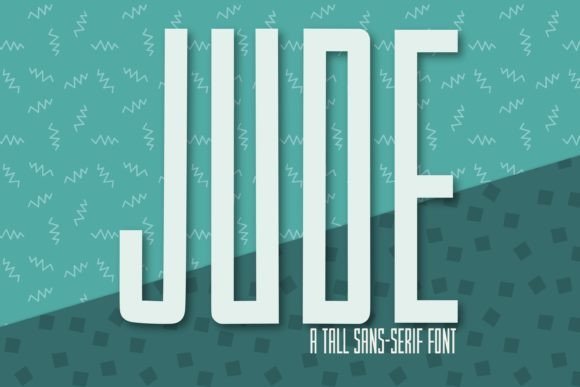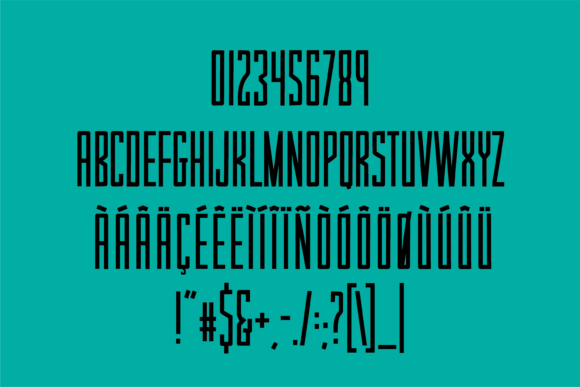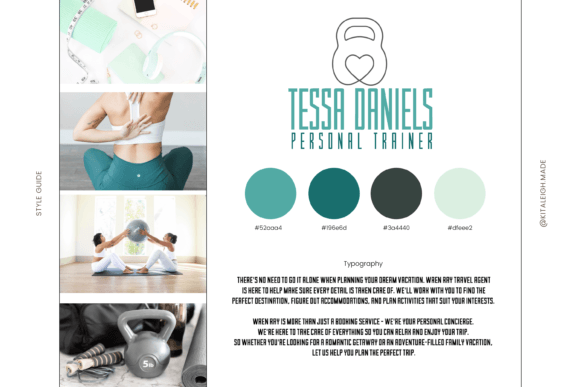
The Perfect Font for Making a Statement
As designers, we’ve all been there – staring at a blank canvas, searching for the perfect font to bring our vision to life. It’s that moment of clarity when everything falls into place, and you know exactly what you need to make your project stand out. For many creatives, that moment often involves the bold and stylish Jude Font.
Jude Font is a modern sans-serif font designed to grab attention and make a statement. With its elongated letterforms and sleek aesthetic, it’s perfect for creating eye-catching headlines, posters, and social media designs. Whether you’re working on a branding project or a contemporary art piece, Jude Font is a versatile choice that’s sure to deliver. Its clean lines and uppercase emphasis make it an ideal choice for strong visual statements, making it a valuable addition to any designer’s toolkit.
Jude Font Key Features
- Font Family: A sans-serif font family designed for digital interfaces.
- Font Size: Designed to be highly legible at small font sizes, ideal for digital interfaces.
- Unique Characteristics: Clean, modern design with a high x-height, making it highly readable at small font sizes.
Jude Font Review
As a designer, I was excited to dive into Jude Font, a sans-serif font that promises to deliver modern and clean typography. Here’s my honest review.
- Unique Character: Jude Font has a distinct character that sets it apart from other sans-serif fonts.
- High Legibility: The font is highly legible, making it perfect for body text and long-form content.
- Wide Range of Sizes: Jude Font performs well in various font sizes, from small to large, without losing its crispness.
- Limited Expressiveness: While Jude Font is great for body text, it may not be the best choice for titles or headings where a more expressive font is needed.
- Not Ideal for Display: The font may not be the best choice for display text, such as quotes or captions, due to its relatively simple design.
Overall, I’m impressed with Jude Font’s clean and modern design. While it may have some limitations, it’s a solid choice for body text and everyday use. With its high legibility and unique character, Jude Font is definitely worth considering for your next design project.
Jude Font is suitable for various applications, including:
- Typography-based designs
- Presentations and documents
Lato is a modern sans-serif font that is highly legible and versatile. It’s ideal for use in digital products, especially when you need a clean and minimalistic look. Lato is a great alternative to Jude Font when you want a more contemporary feel without sacrificing readability.
Montserrat is a geometric sans-serif font that is highly suitable for digital products and modern designs. It’s a great choice when you need a font that’s both modern and sophisticated. Compared to Jude Font, Montserrat has a more geometric feel, making it perfect for designs that require a clean and urban look.
Abril Fatface Font
Abril Fatface is a beautiful serif font that is highly suitable for designs that require a touch of elegance and sophistication. It’s ideal for use in print materials, especially when you need a font that’s both stylish and professional. Abril Fatface is a great alternative to Jude Font when you want a more traditional feel with a touch of luxury.
Open Sans is a modern sans-serif font that is highly legible and versatile. It’s ideal for use in digital products, especially when you need a clean and minimalistic look. Open Sans is a great alternative to Jude Font when you want a more contemporary feel without sacrificing readability, and it’s also a great choice for designs that require a lot of text.
Exploring Jude Font in Creative Projects
Create a magical menu board for a fantasy-themed cafe or restaurant.
To use Jude Font in this project:
Yes, Jude Font is available in multiple font weights, including Light, Regular, Medium, Bold, and Extra Bold. This allows designers to create a range of visual effects and emphasize specific text elements. The font weights can be combined to create a harmonious and balanced design.